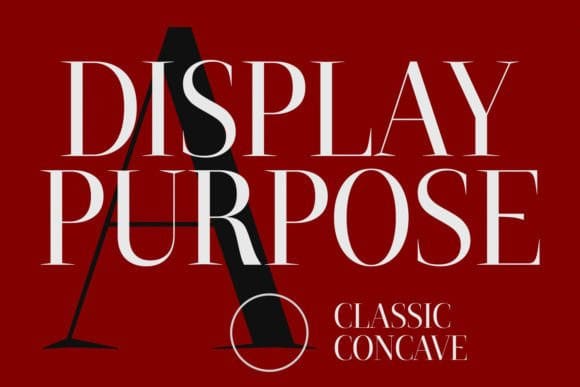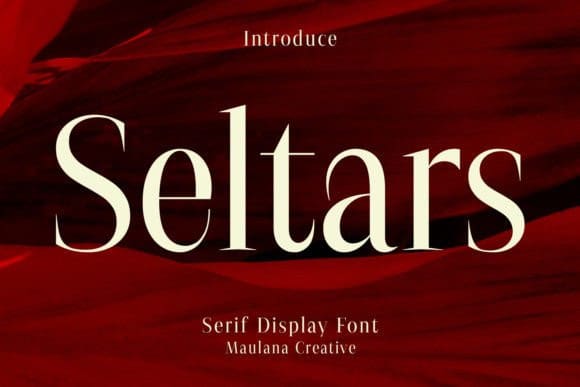
Seltars Font
Seltars Font is a new font that blends traditional elegance with contemporary flair. This modern serif font features clean lines, smooth curves, and sharp serifs for a sophisticated look that is perfect for high-end branding, luxury packaging, and editorial design. Give your designs a touch of sophistication with this stunning font.